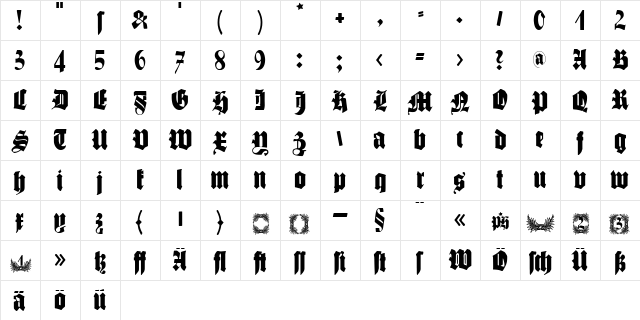
Schmale Gotisch MK Regular
Design Context for Schmale Gotisch MK Typeface
Schmale Gotisch MK is a composed and adaptable typeface that performs quietly and consistently across a wide range of design contexts.